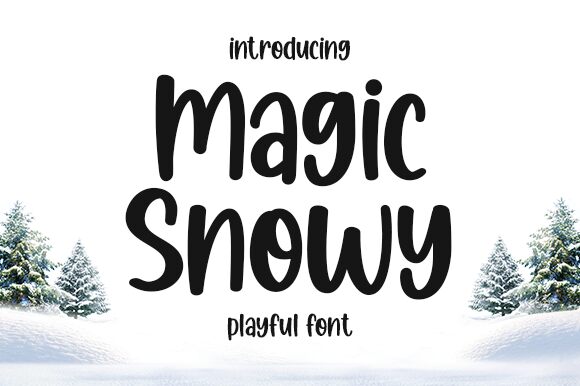
Magic Snowy
Looking for a font that captures the whimsy and magic of winter? Look no further than Magic Snowy! This bold, condensed typeface by designer Aldi Raya Pradipta is perfect for any project that needs a touch of playfulness and handcrafted charm. Whether you're designing holiday cards, creating winter-themed logos, or crafting social media posts to promote your seasonal products, Magic Snowy's quirky yet legible style is sure to delight. So why settle for ordinary typography when you can add a touch of enchantment to your designs with Magic Snowy?